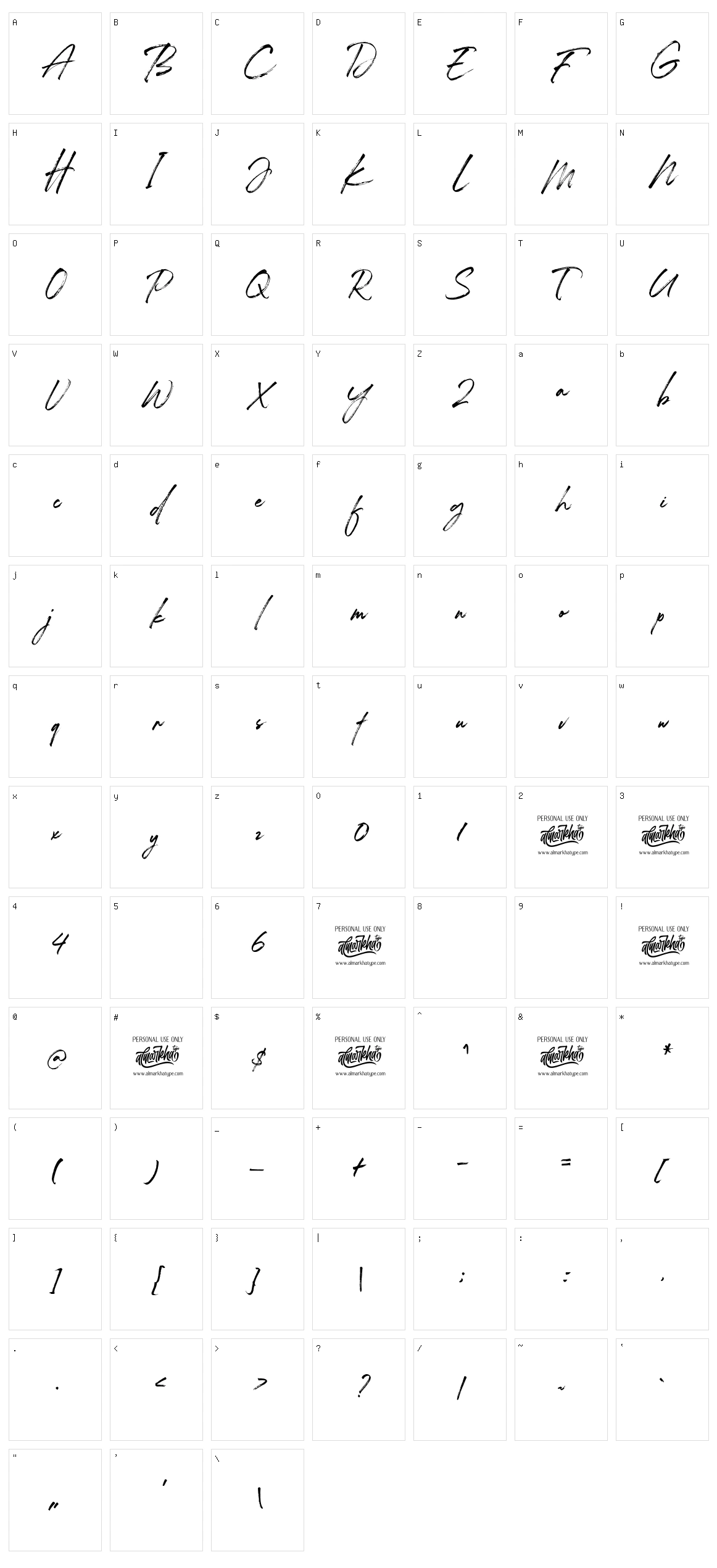
The free font Charlietta de Angela is carefully designed by Almarkhatype, showcasing a thoughtful balance of creativity and usability and falls under the Script font style. When you download the ZIP file, it contains only 928.55 KB of font files, making it lightweight and quick to download. Please review the license details below to understand permitted usage and distribution rights. If license information is not available, we recommend using this font for personal projects only or contacting the author directly for commercial usage permissions.